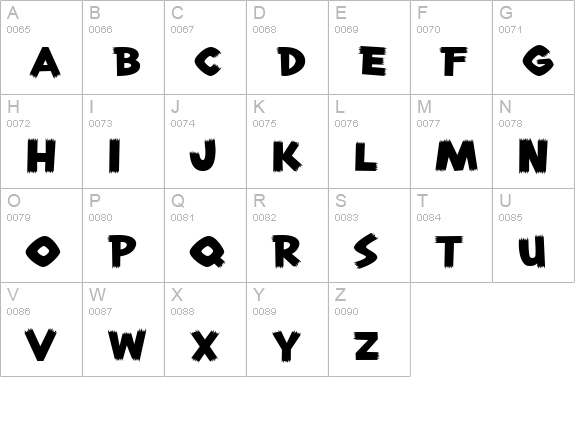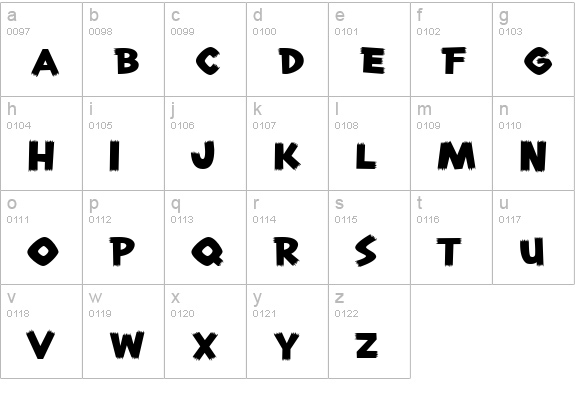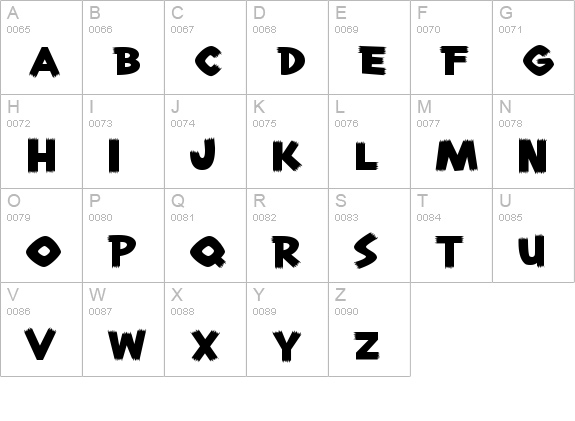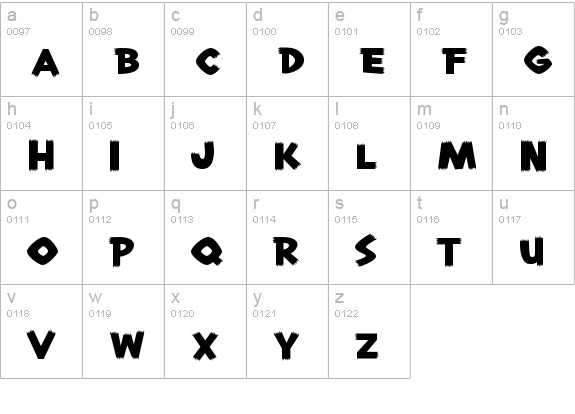
Roast Beef BTN Ragged Font Details
Roast Beef BTN Ragged font exudes a unique blend of rustic charm and modern elegance, making it a perfect choice for a wide range of design projects. Its slightly uneven edges and rugged appearance give it a distinctive character that adds a touch of authenticity to any text. This versatile font is highly legible and works well for both headlines and body text, making it a great choice for various design applications. Best of all, Roast Beef BTN Ragged font is available for free download at FontsMarket.com. Whether you're working on a branding project, a website design, or a creative poster, this font will bring a touch of warmth and character to your work. Embrace the rugged beauty of Roast Beef BTN Ragged font and elevate your designs with its unique style. Download it today and let your creativity shine!